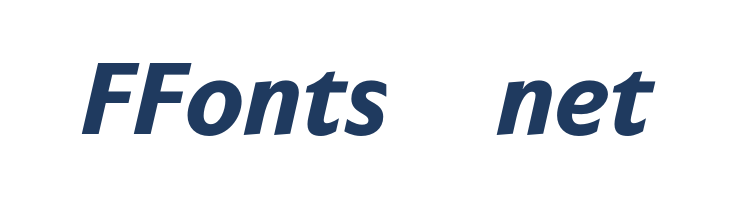
FaberSansStd-86SchwerKursiv Font
FaberSansStd-86SchwerKursiv Description
This font features a bold and dynamic sans-serif style with a distinct italic slant, giving it a sense of movement and energy. The characters are well-defined with a consistent stroke weight, providing a strong and confident appearance. The uppercase letters are slightly taller than average, enhancing their prominence, while the lowercase letters maintain a balanced and harmonious look. The font's clean lines and modern aesthetic make it versatile for various design applications. Its boldness ensures excellent readability, even at smaller sizes, making it suitable for both digital and print media.
| Use Case | Headlines, Logos, Branding |
| Proposed Projects | Ideal for branding, advertising, headlines, and editorial design projects. |